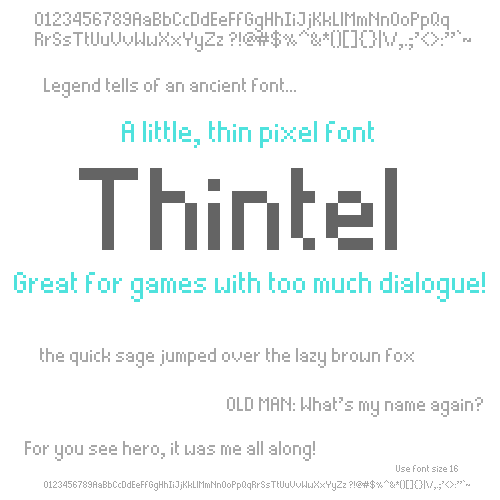
Font name: | Thintel |
Author: | Skeddles |
Note by Skeddles | |
I made this pixel font because I needed one for a game, but all other fonts were too fat. I wanted to fit more text per line, but still make it nice and round, and easy to read. Perfect for small pixel interfaces. |